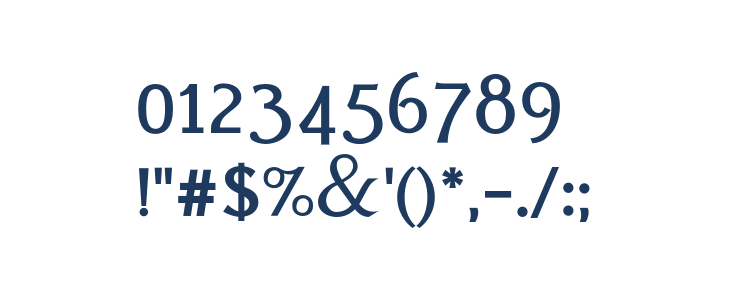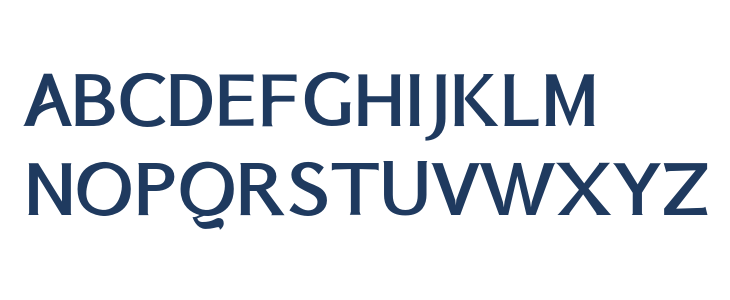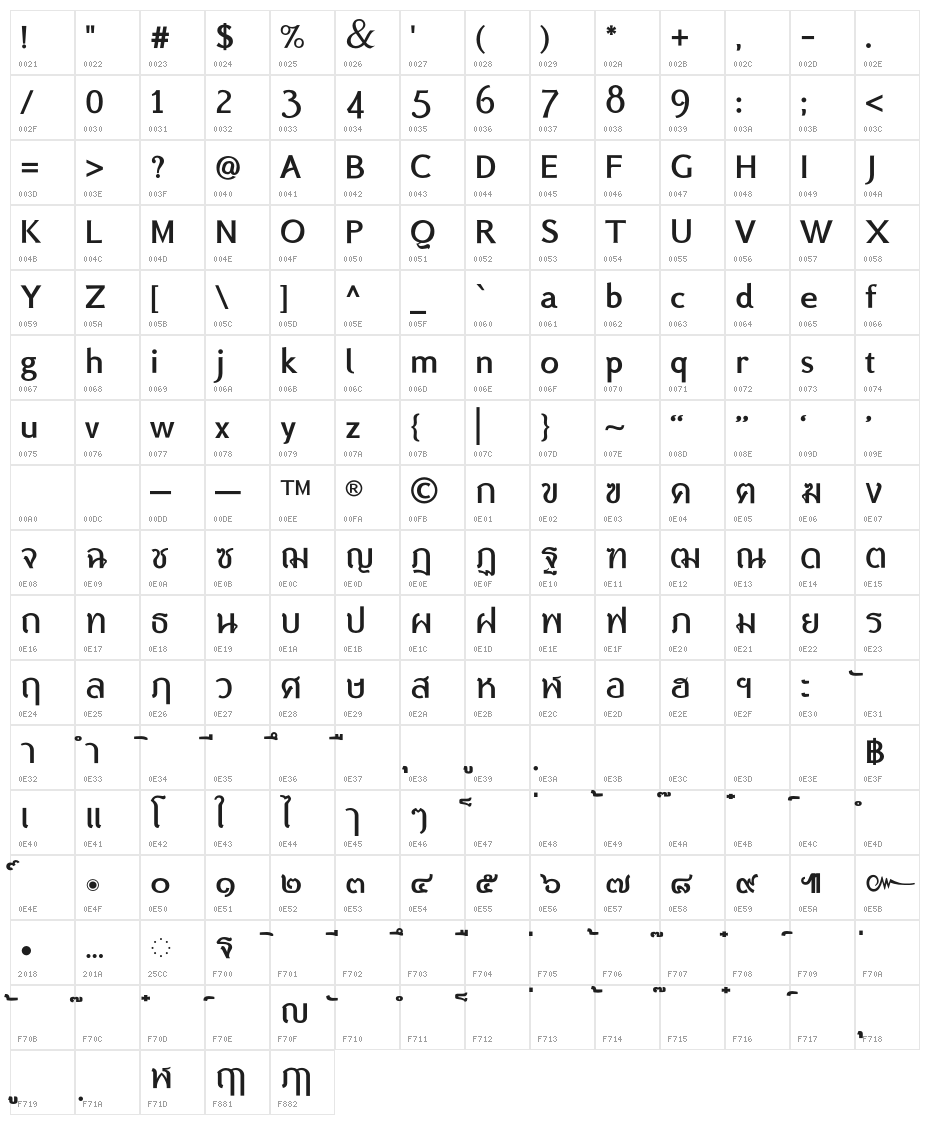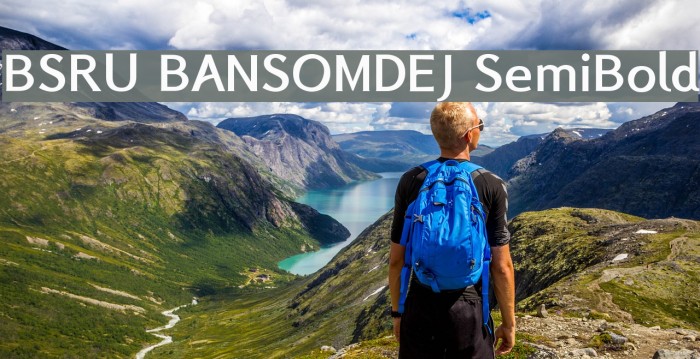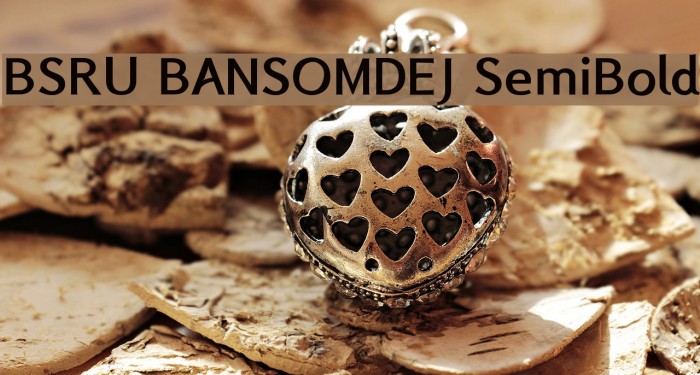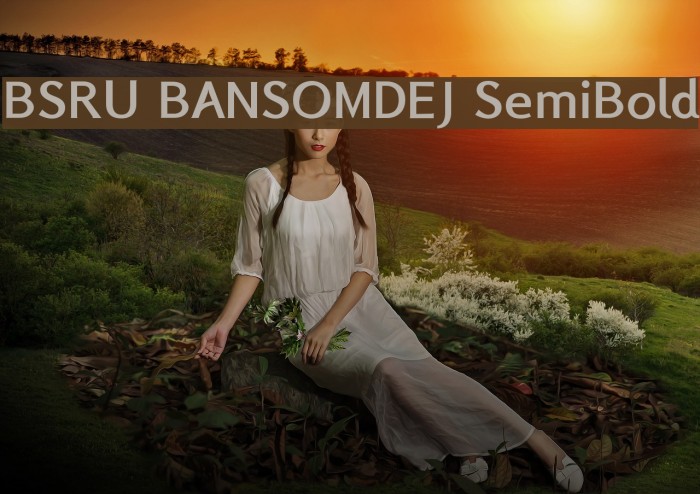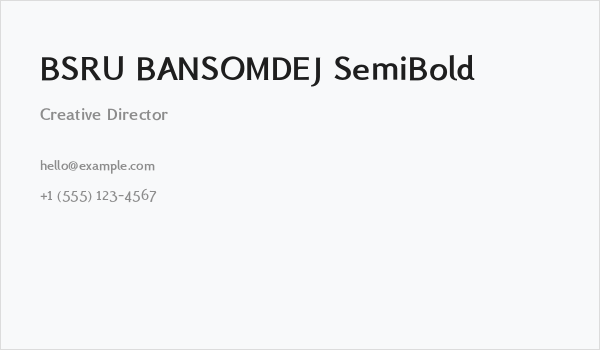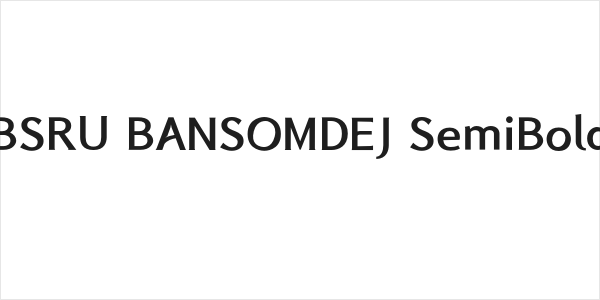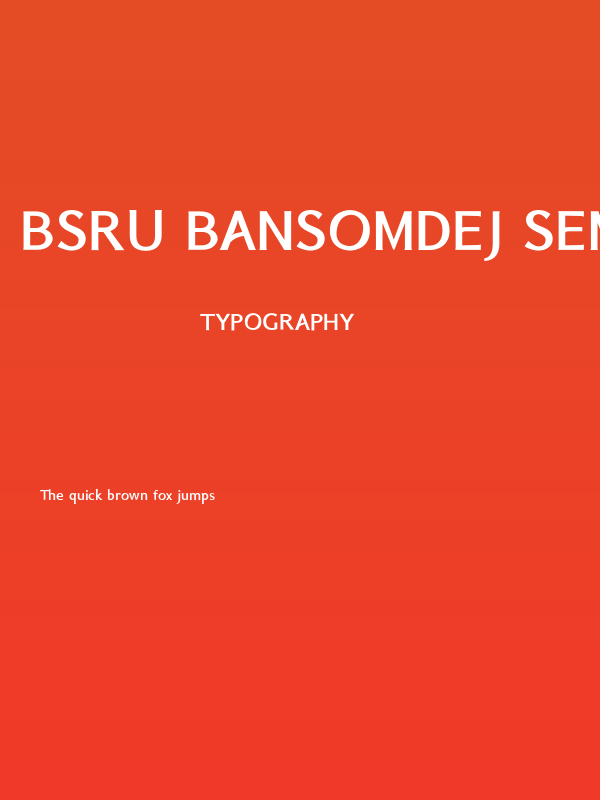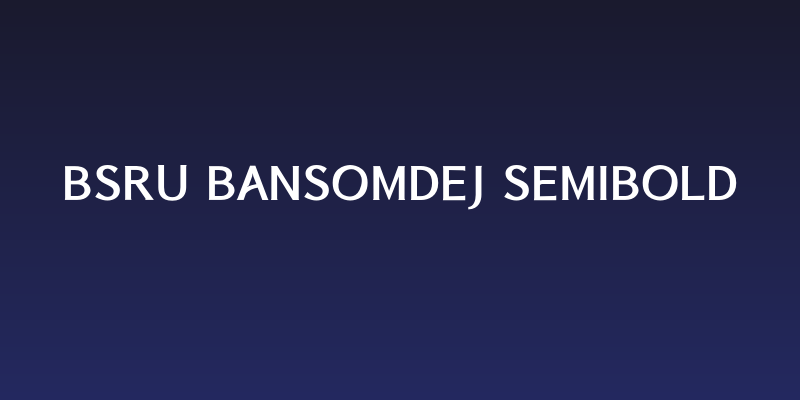
BSRU BANSOMDEJ SemiBold Font
BSRU BANSOMDEJ SemiBold Description
This font features a clean and modern design with a semi-bold weight, providing a strong yet elegant appearance. The characters are well-balanced with a consistent stroke width, offering a harmonious look across both uppercase and lowercase letters. The numerals and special characters maintain the same aesthetic, ensuring uniformity throughout. The font's design is versatile, making it suitable for various applications, from digital to print media. Its clarity and readability make it an excellent choice for both headlines and body text.
| Proposed Projects | Ideal for branding, editorial design, websites, and advertising materials. |